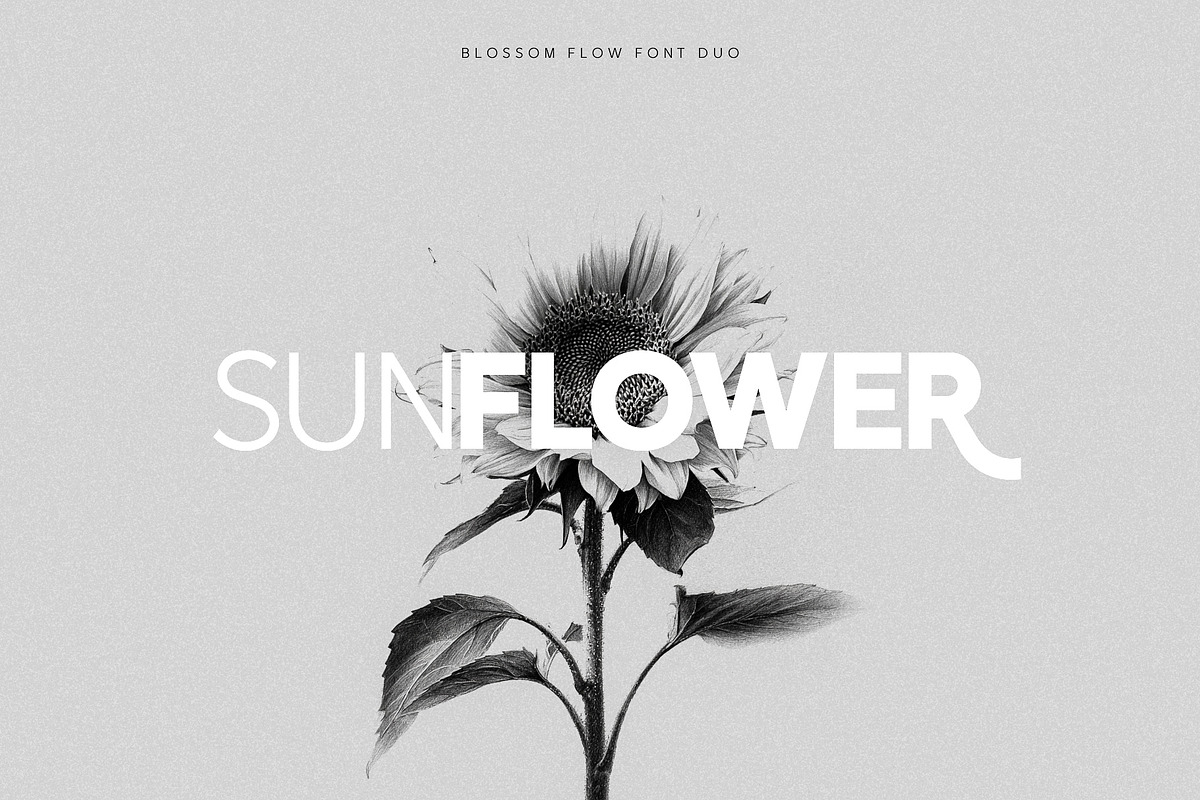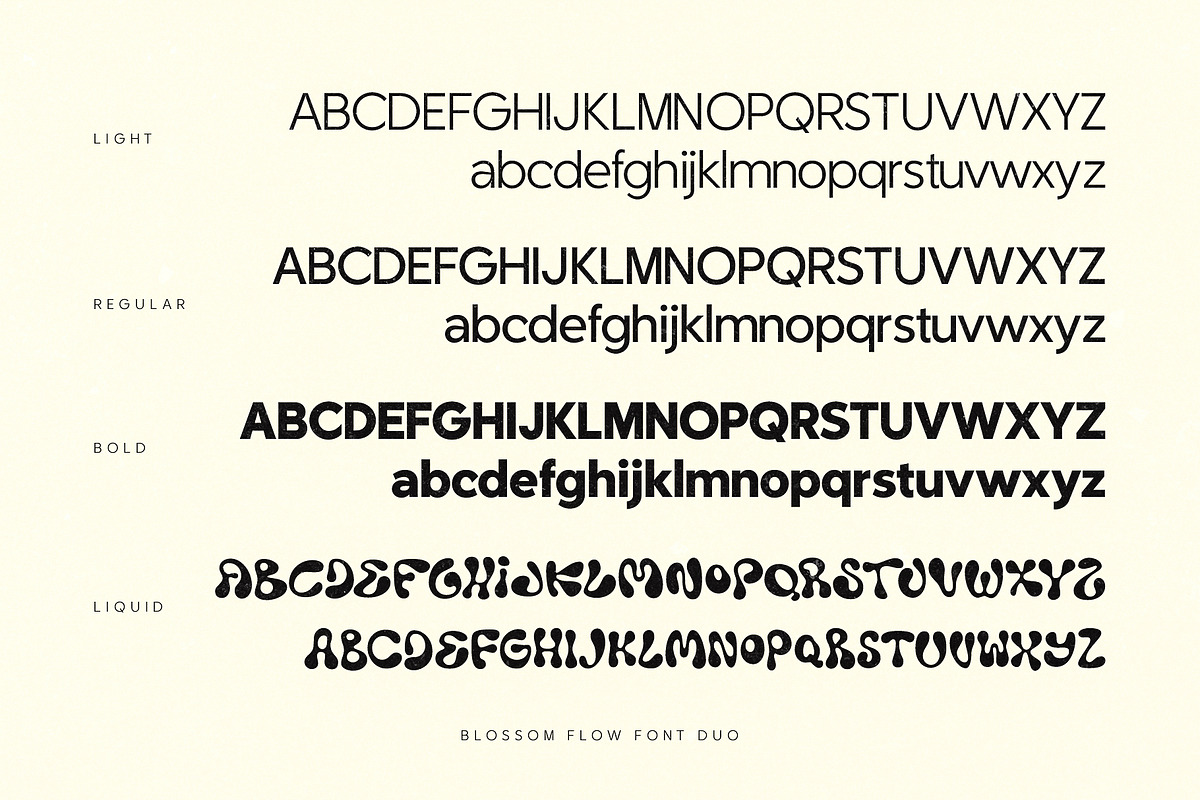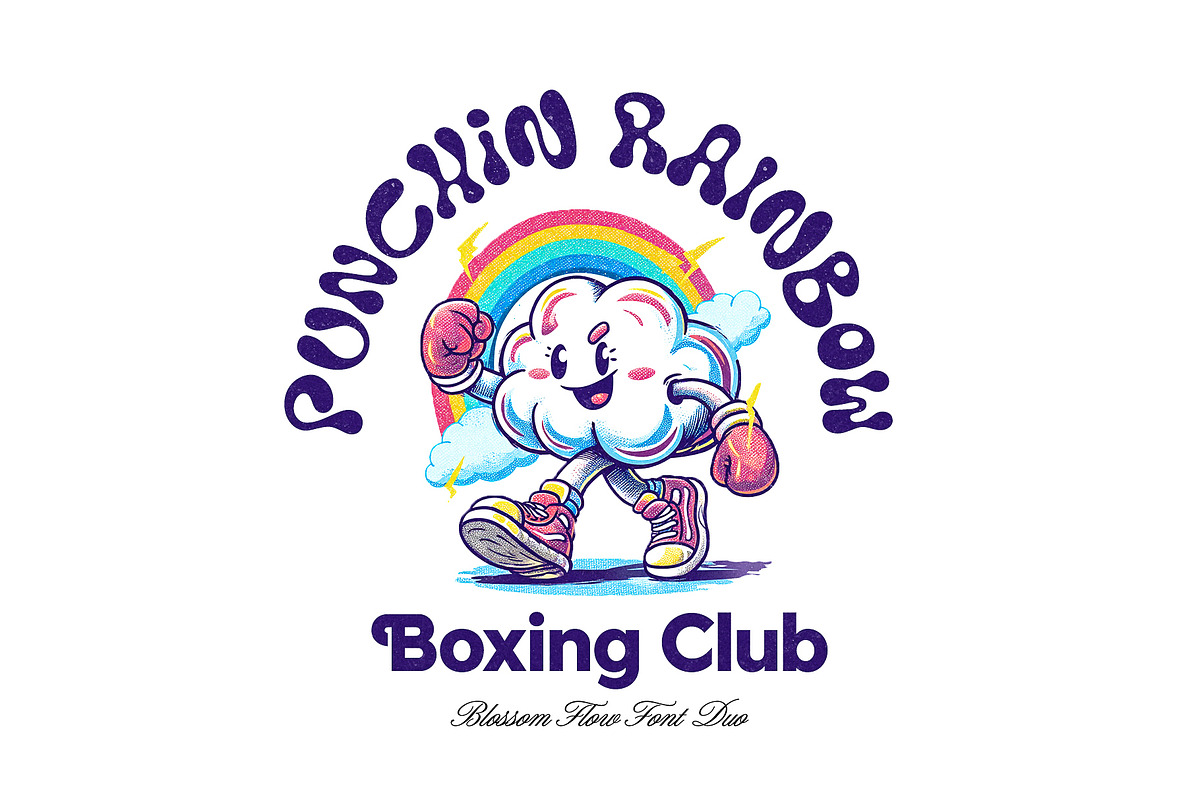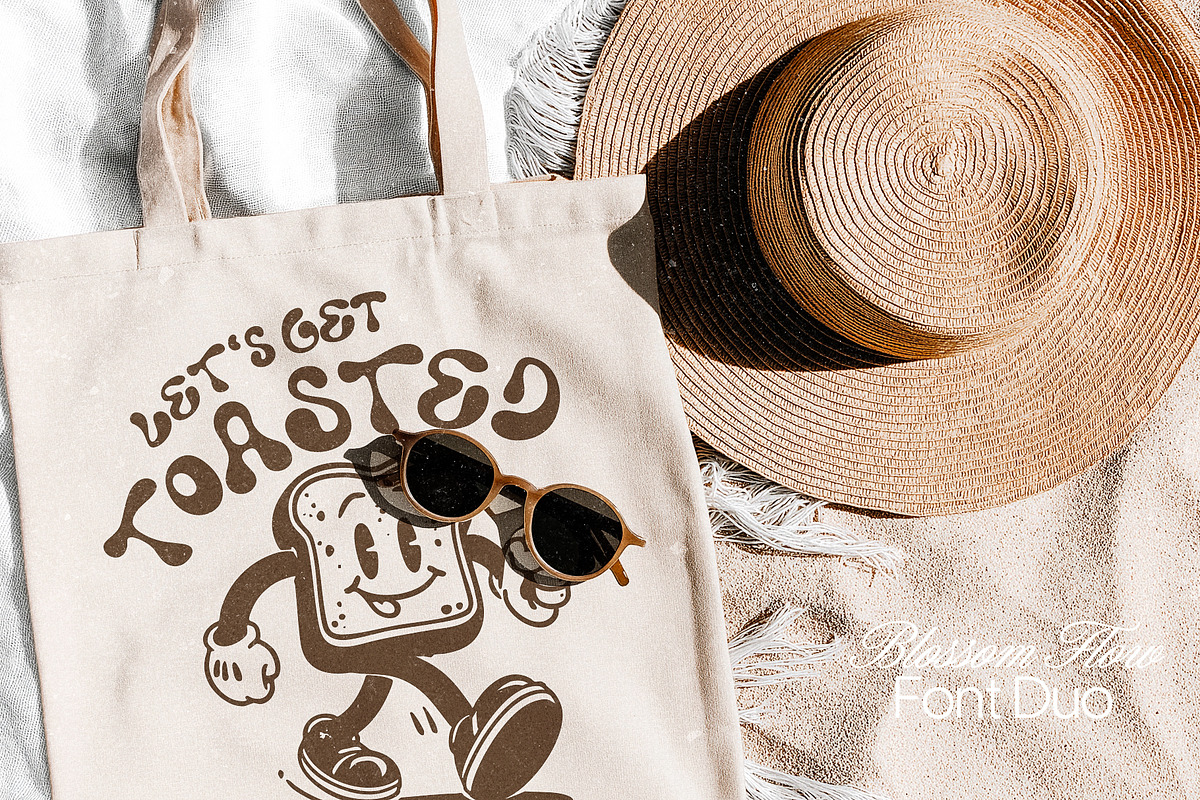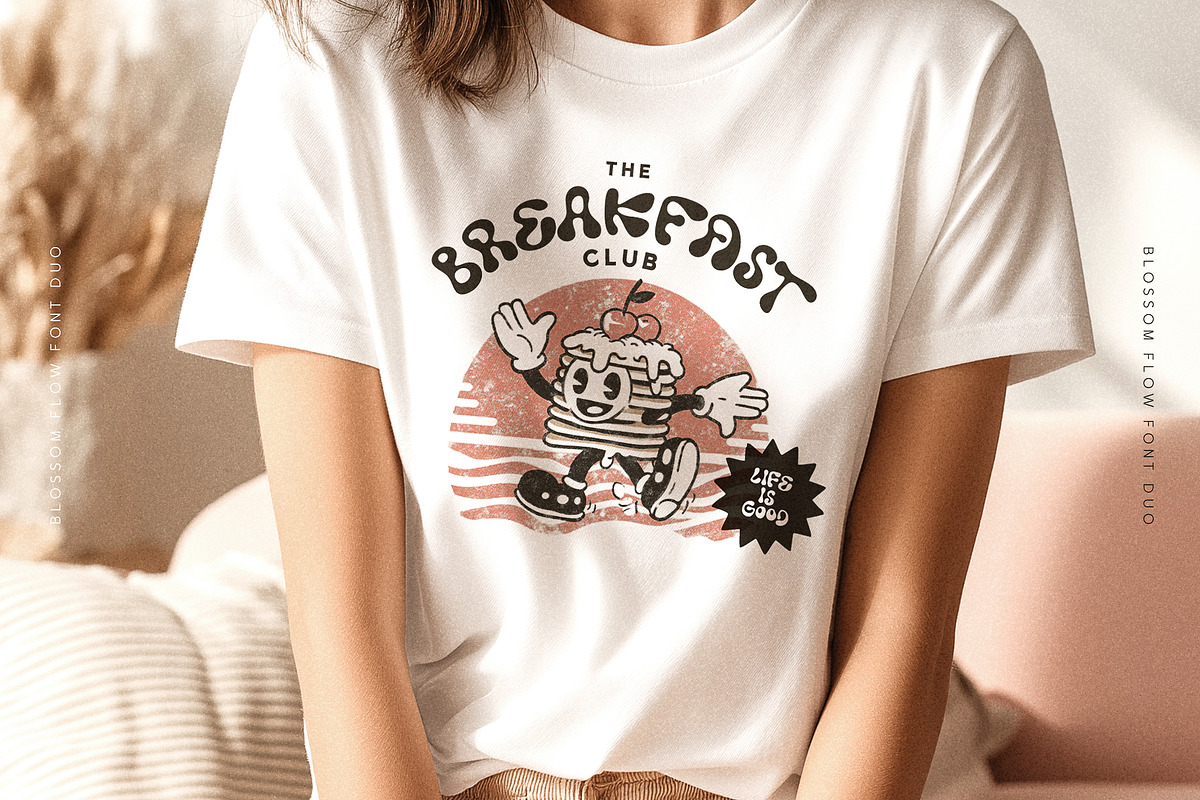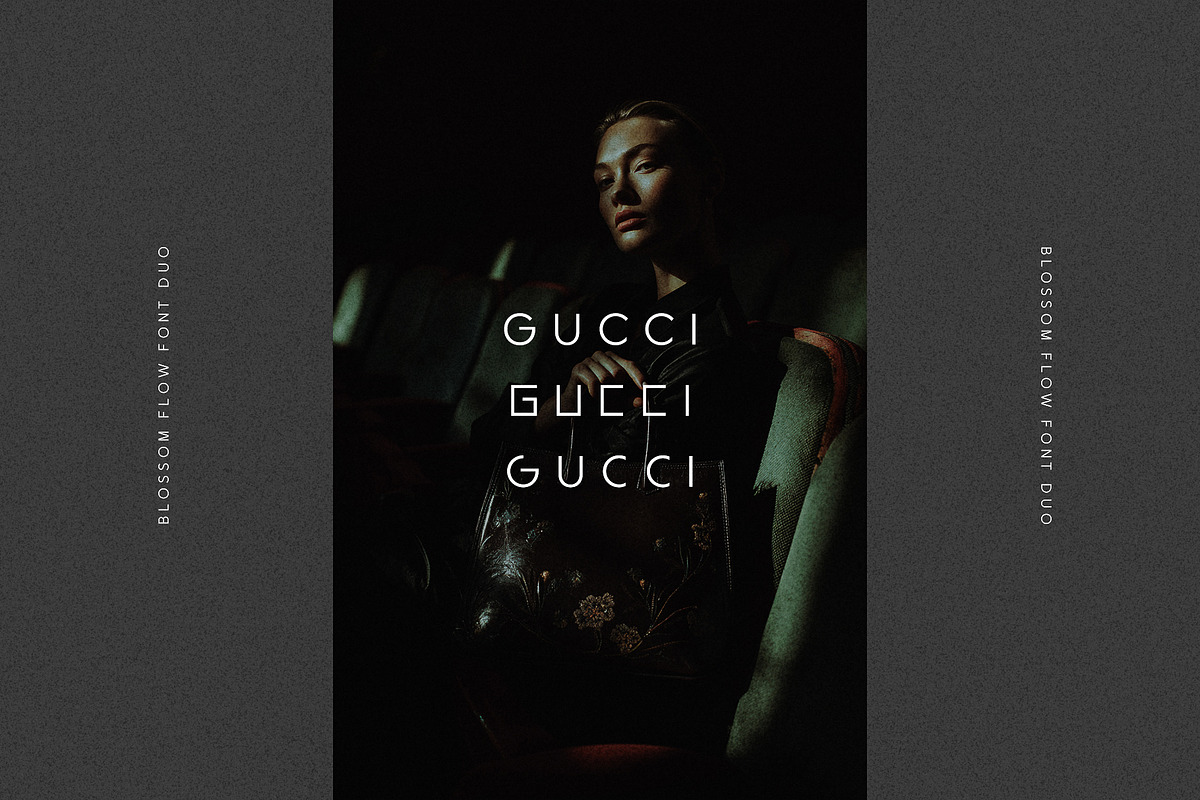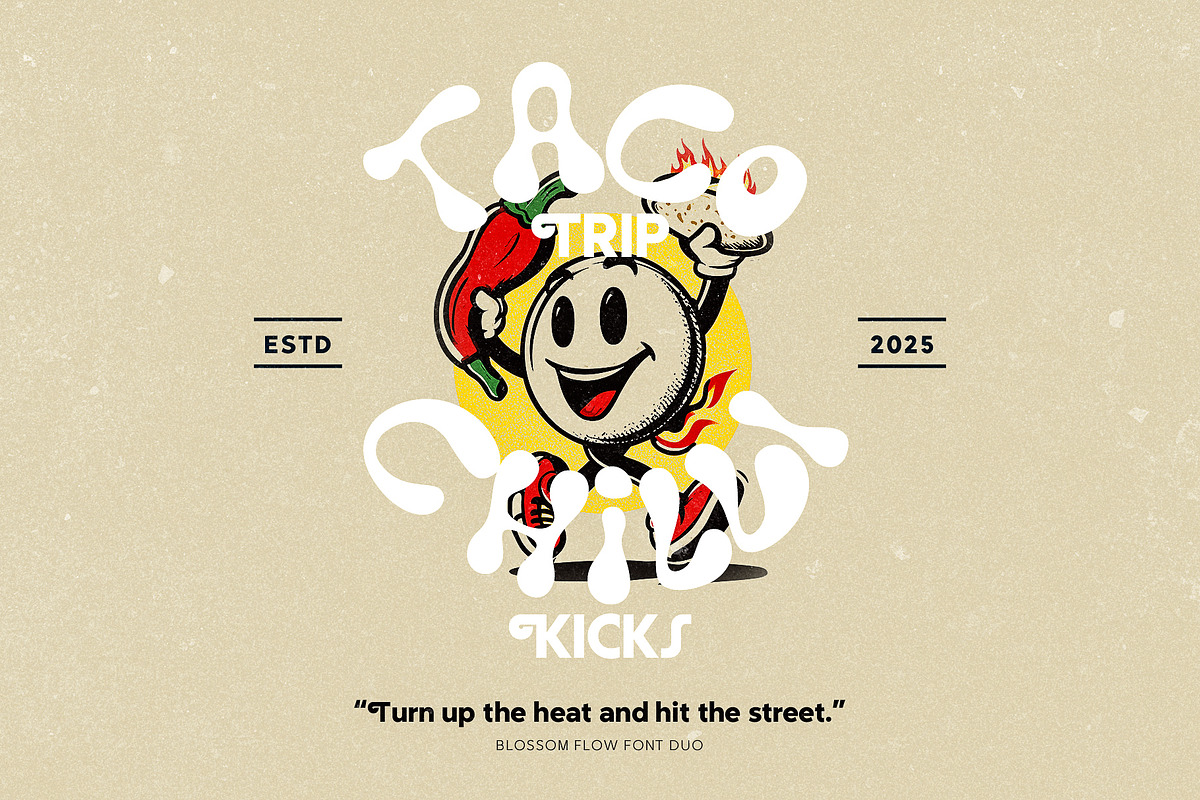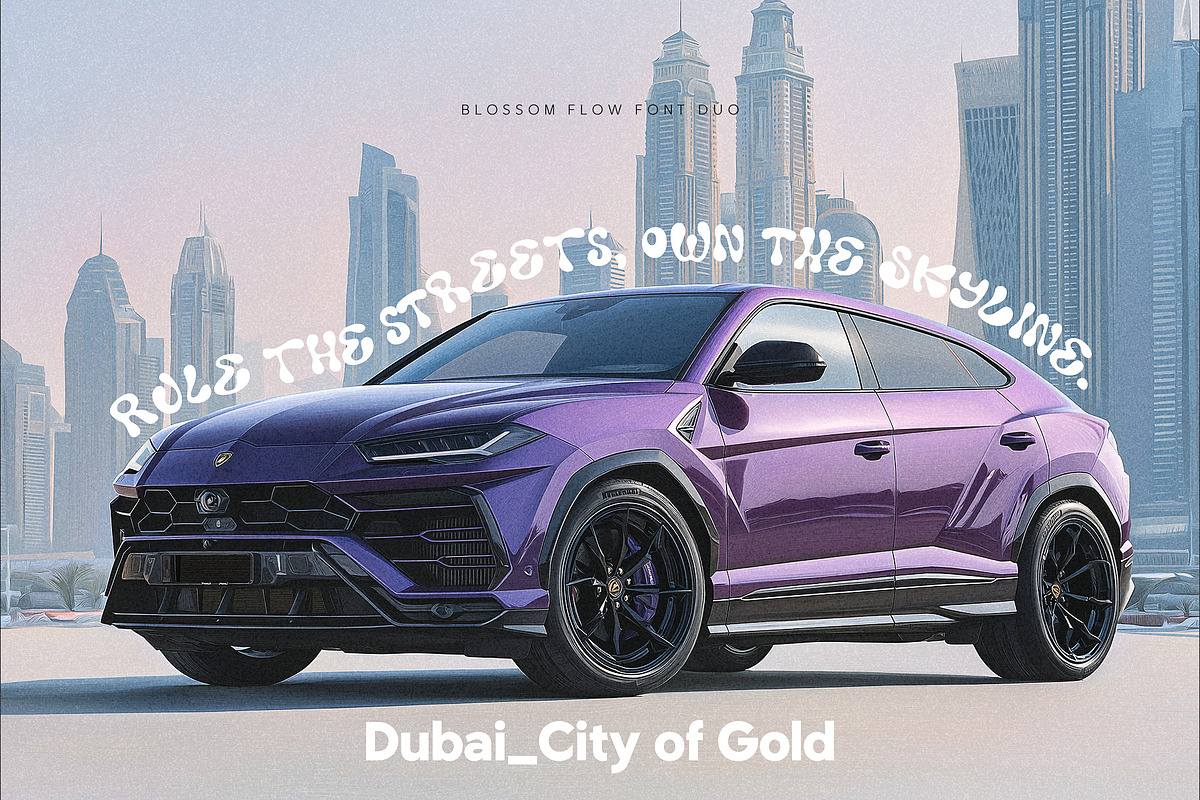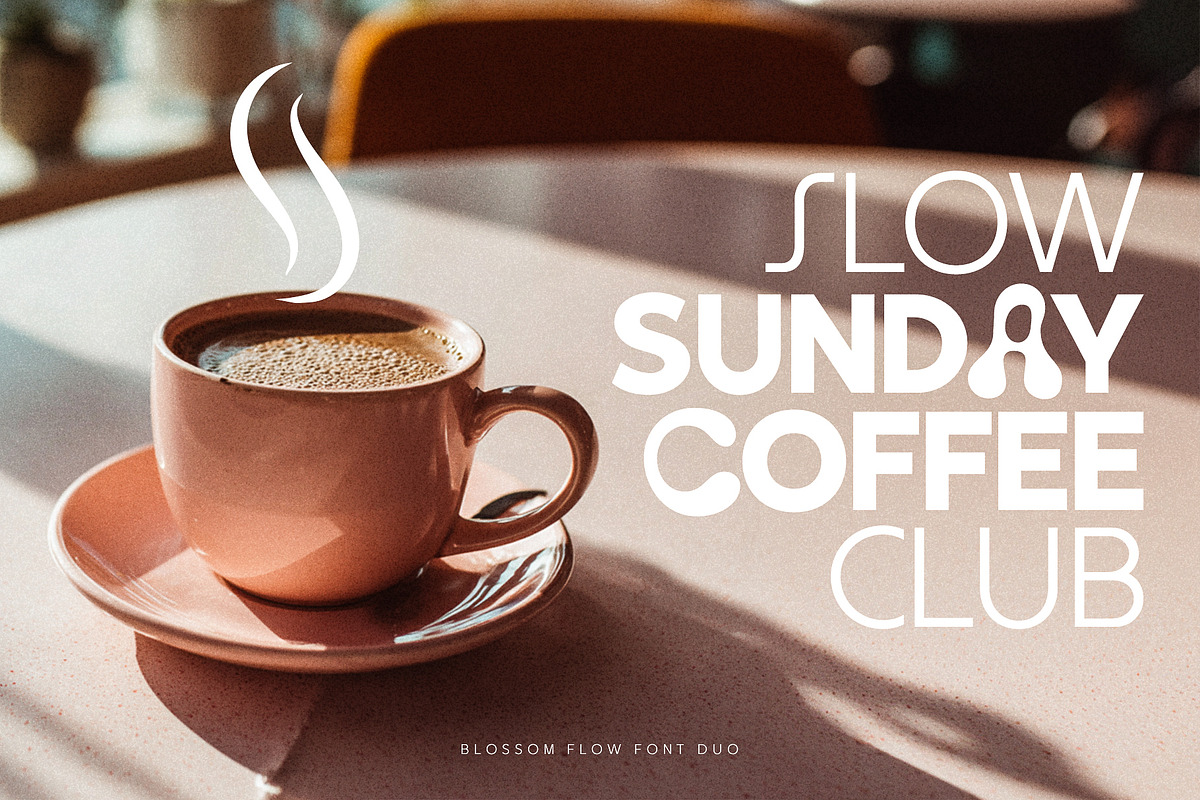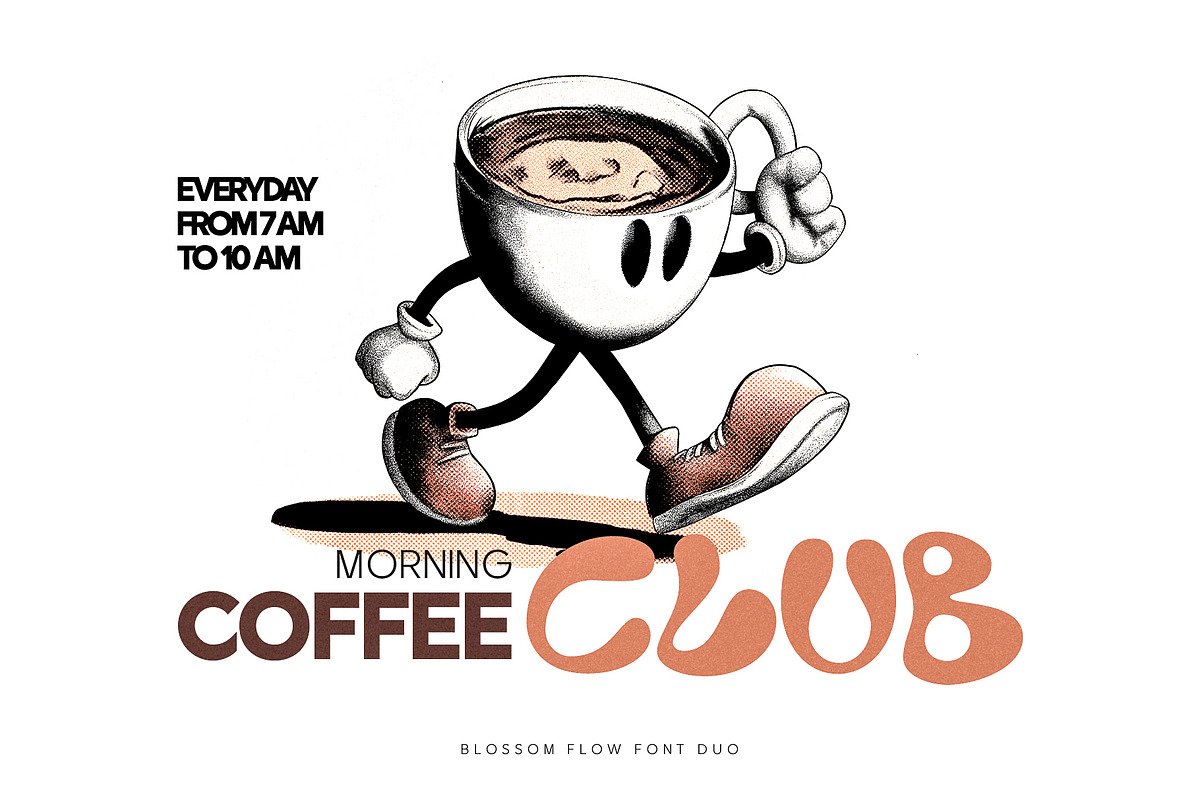
Blossom Flow - Font Duo
Say hello to the Blossom Flow Font Duo - a vibrant pairing of clean sans and liquid lettering that brings a bold, modern twist to your designs!
This dynamic set includes a versatile sans-serif font loaded with playful ligatures and stylistic alternates, perfect for creating smooth and stylish typography. Pair it with the eye-catching Liquid font - available in both Solid and Outline styles - and you’ve got a combo that’s bursting with personality.
Whether you’re building logos, headlines, or social posts, these fonts were made to play together. Mix and match styles, swap in some funky alternates, or let the ligatures do the talking - the creative flow is all yours!